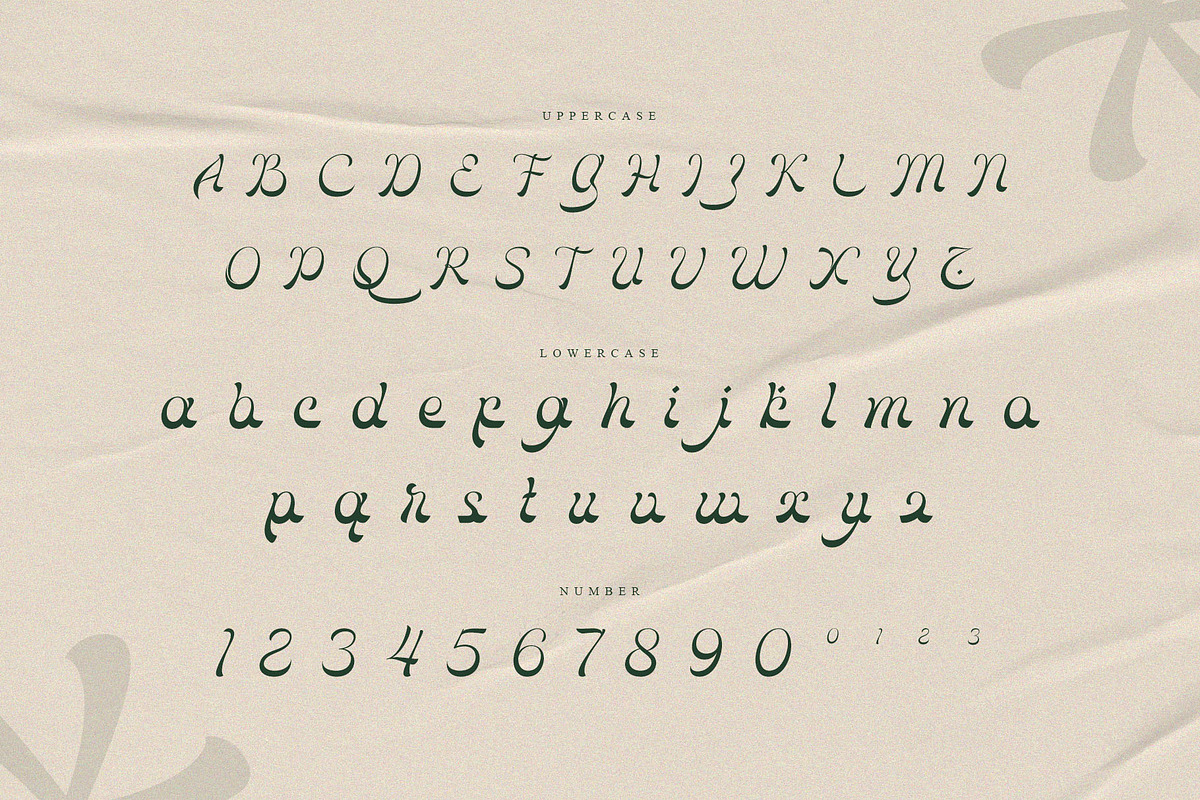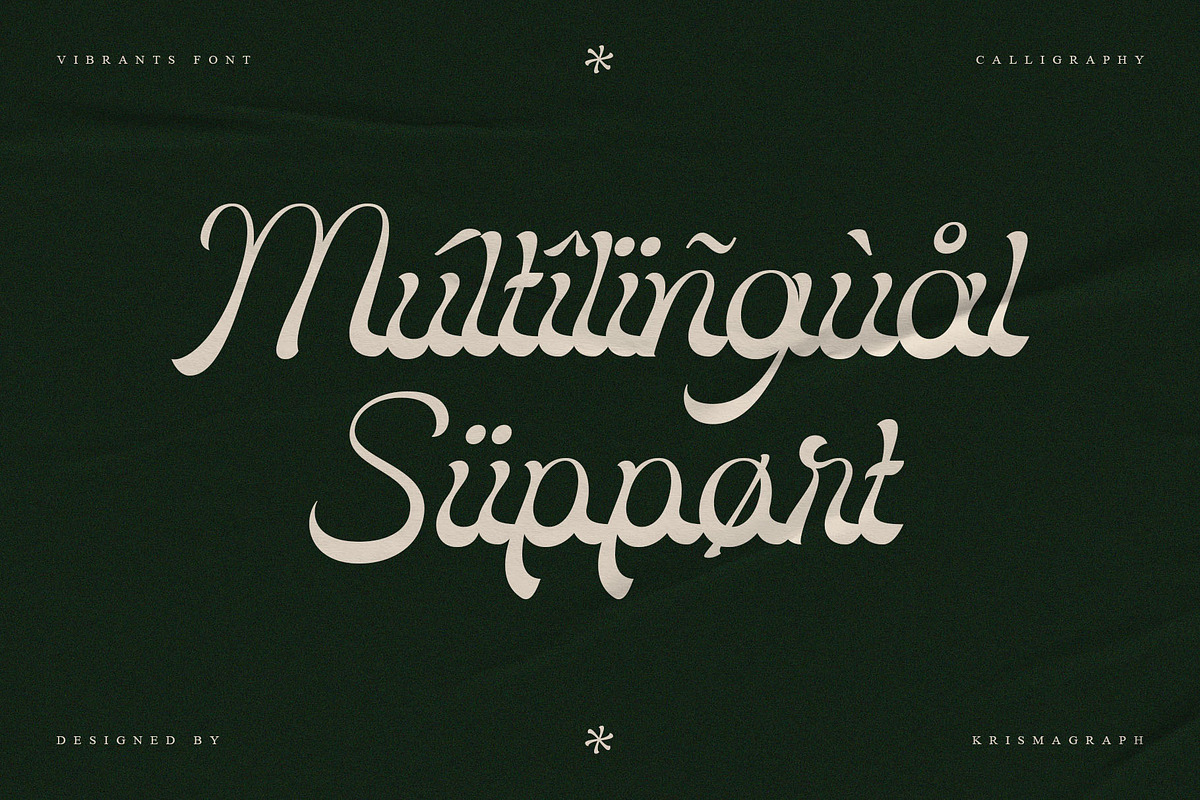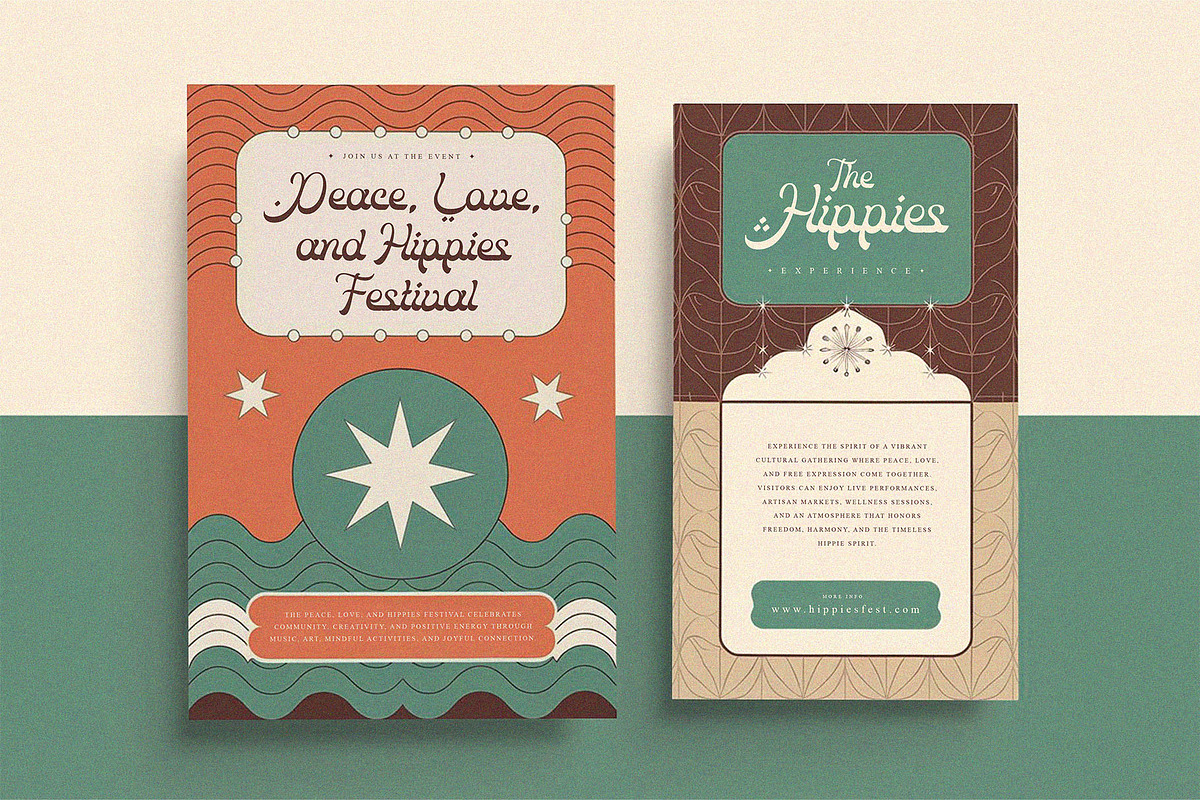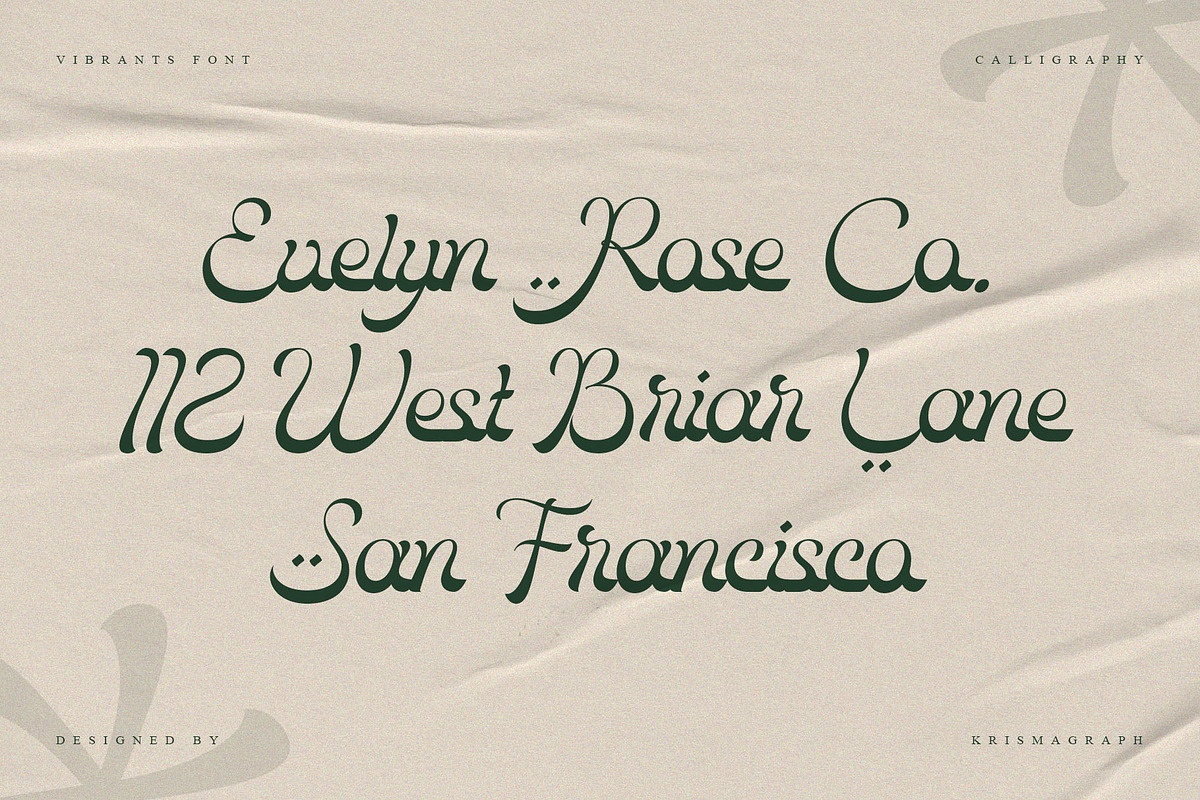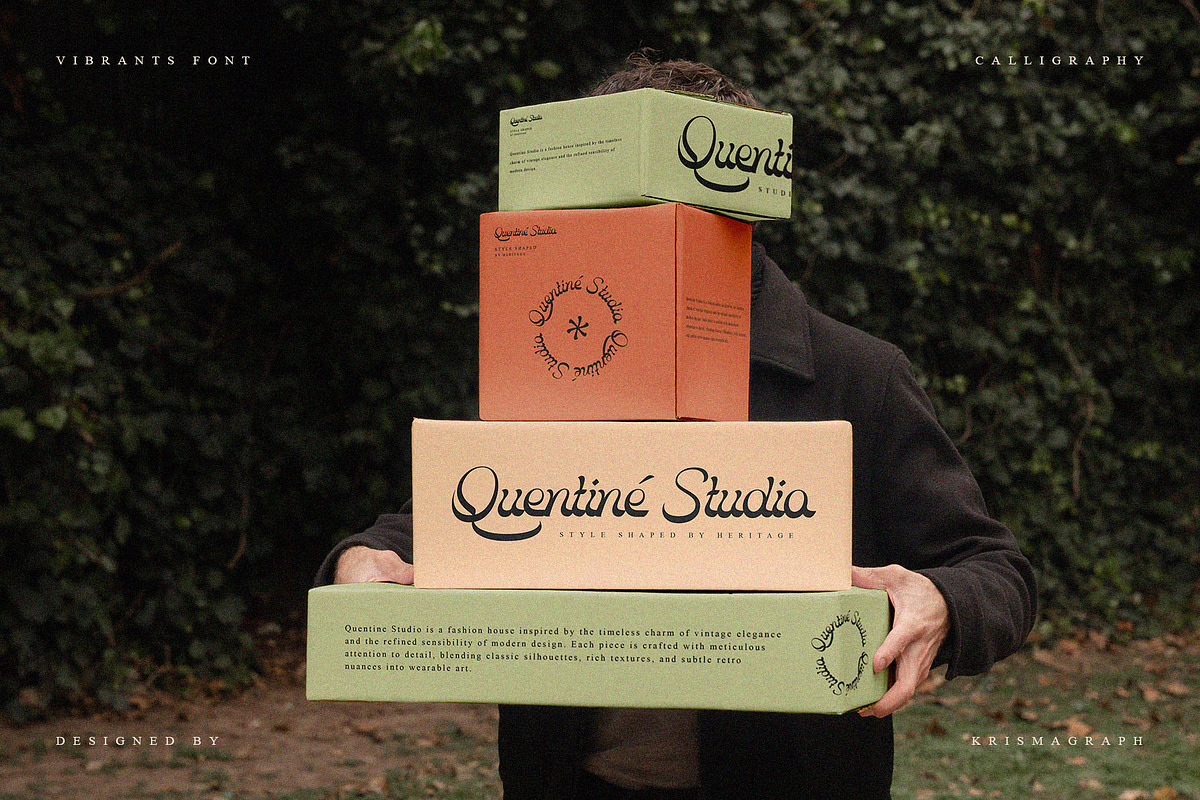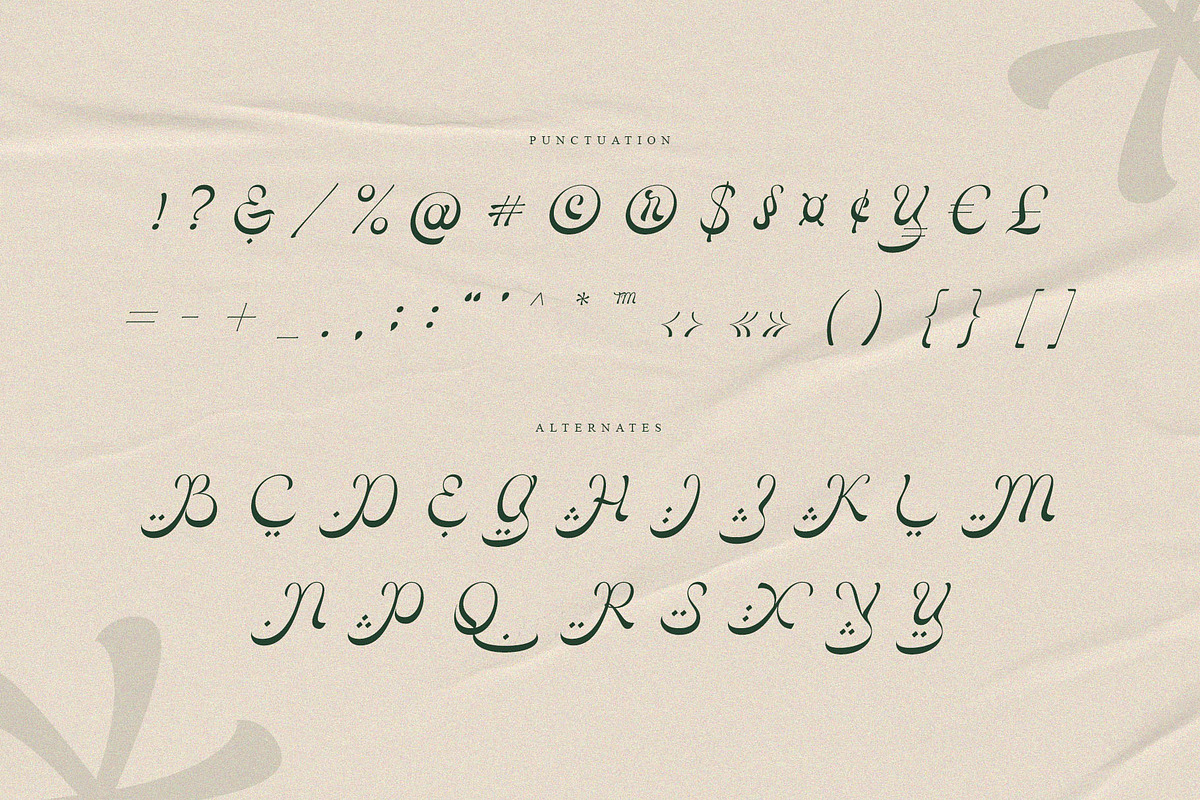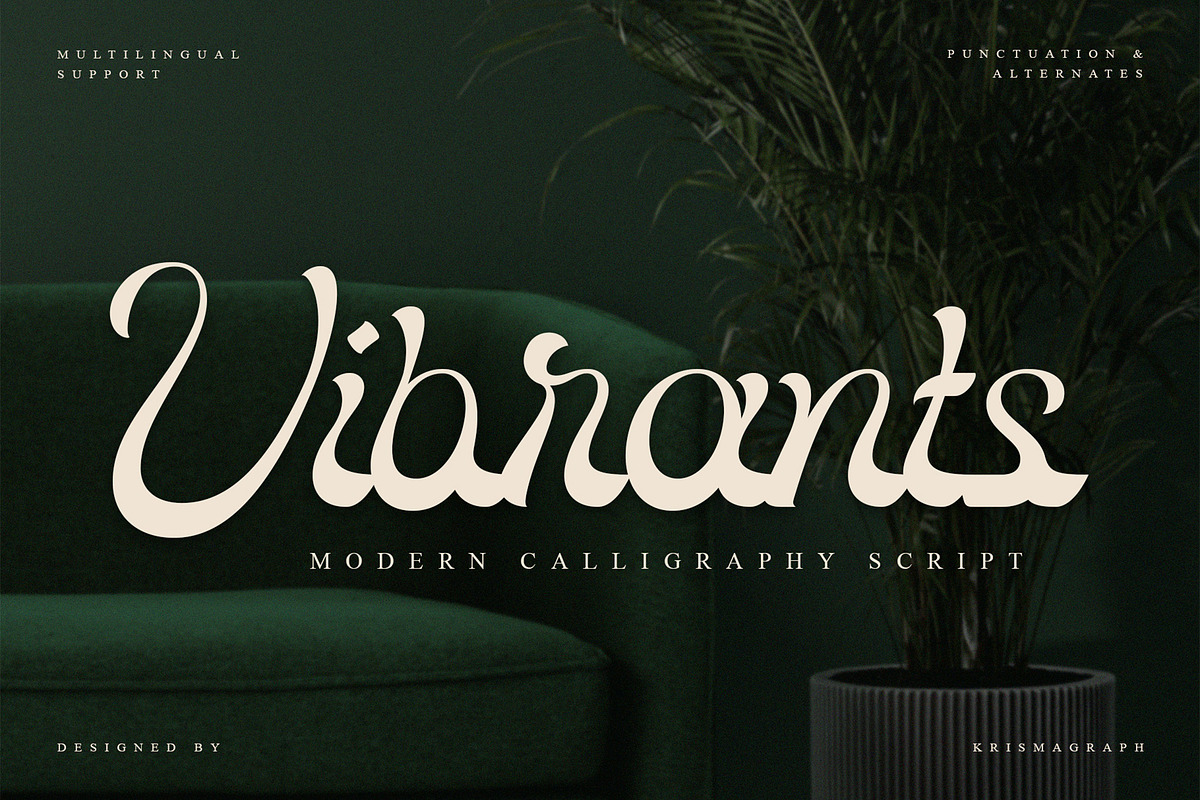
Vibrants — Modern Calligraphy Script
Vibrants is a modern calligraphy script font that blends soft curves with confident strokes. Designed to feel lively yet elegant, this font brings a fresh and expressive personality to branding, packaging, invitations, editorial titles, and creative layouts.
Featuring punctuation, alternates, and multilingual support, Vibrants gives designers flexibility to create energetic yet refined typographic compositions. Its smooth rhythm and balanced contrasts make it suitable for both bold statements and elegant applications.
- Numbers, fractions
- Punctuation and symbols